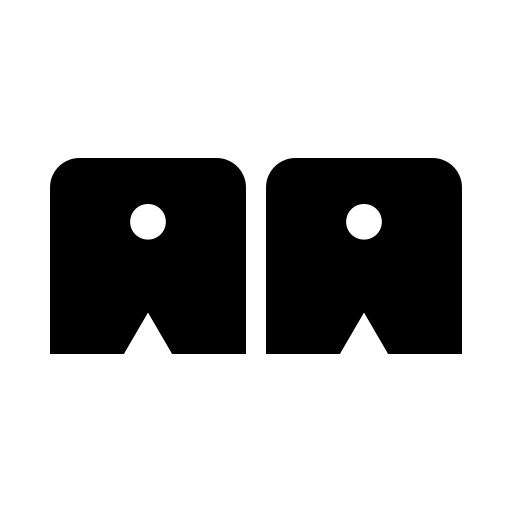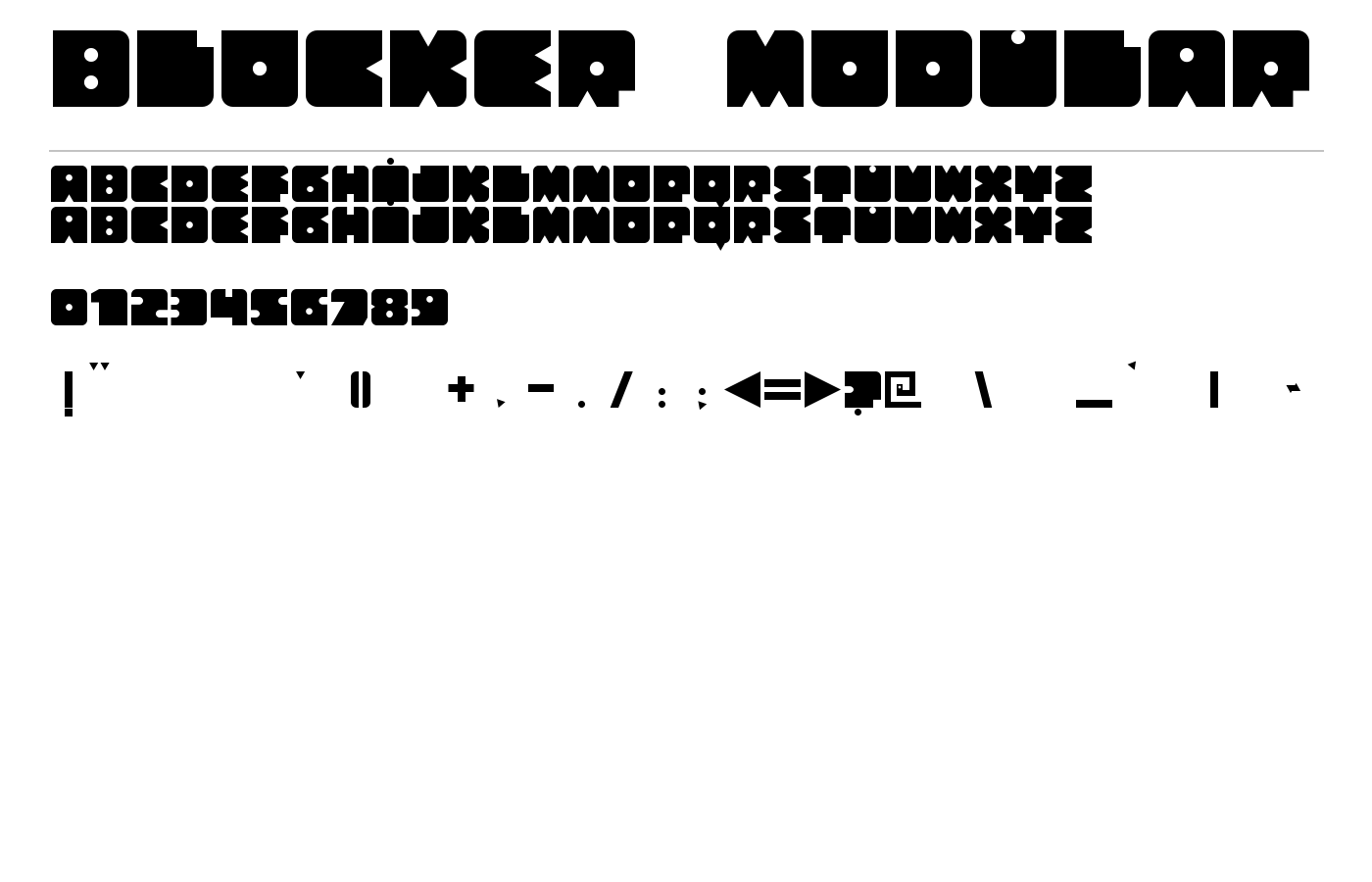
Blocker Modular is a bold, geometric display font with a strong modular and blocky design that commands attention. Its heavy weight, uniform stroke thickness, and distinct cut-out details give it a futuristic, industrial feel perfect for headlines, logos, and branding that aim to make a bold, modern, and playful statement. This font works best in eye-catching design projects where unique personality and visual impact are key.
Blocker Modular Font